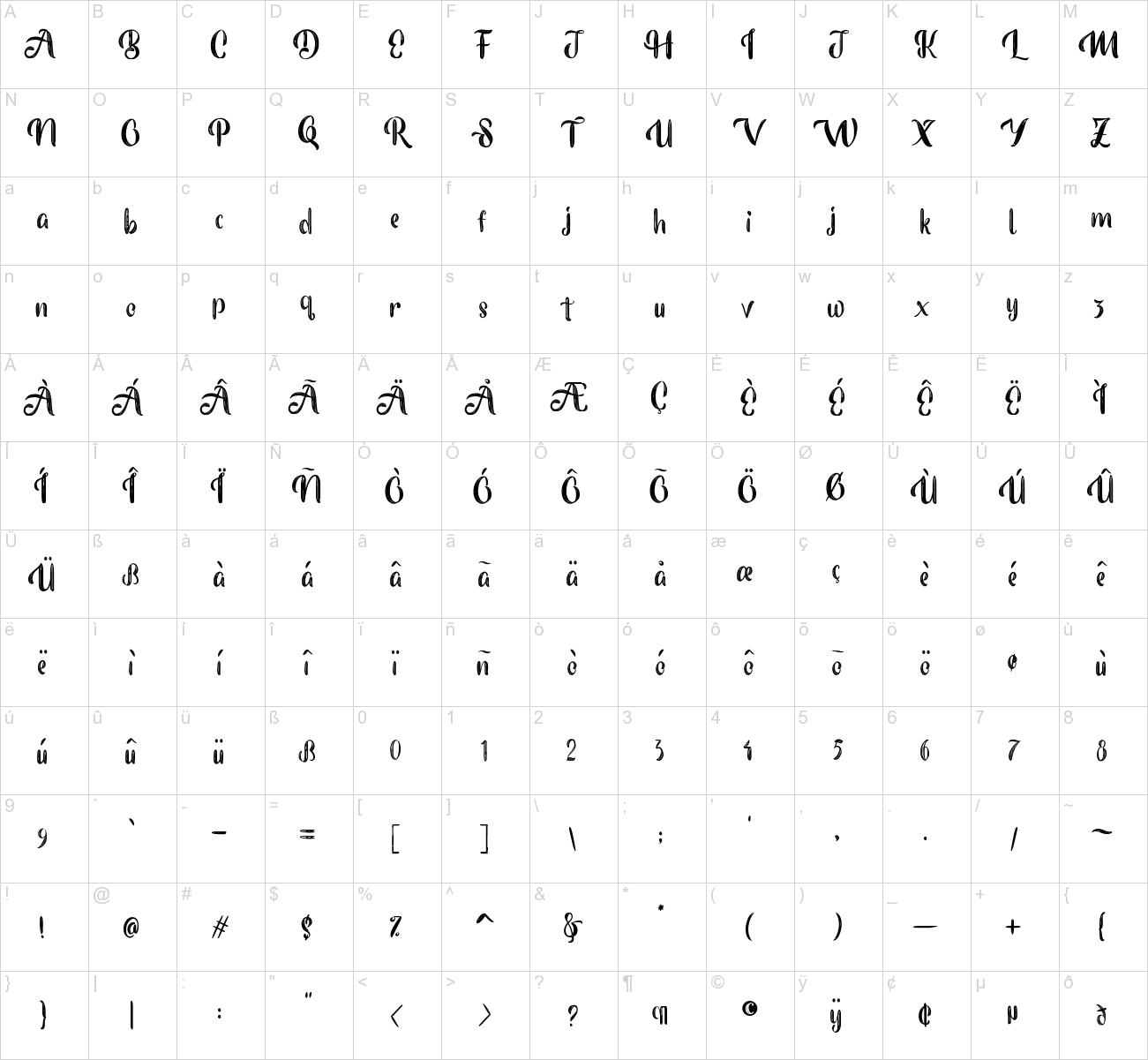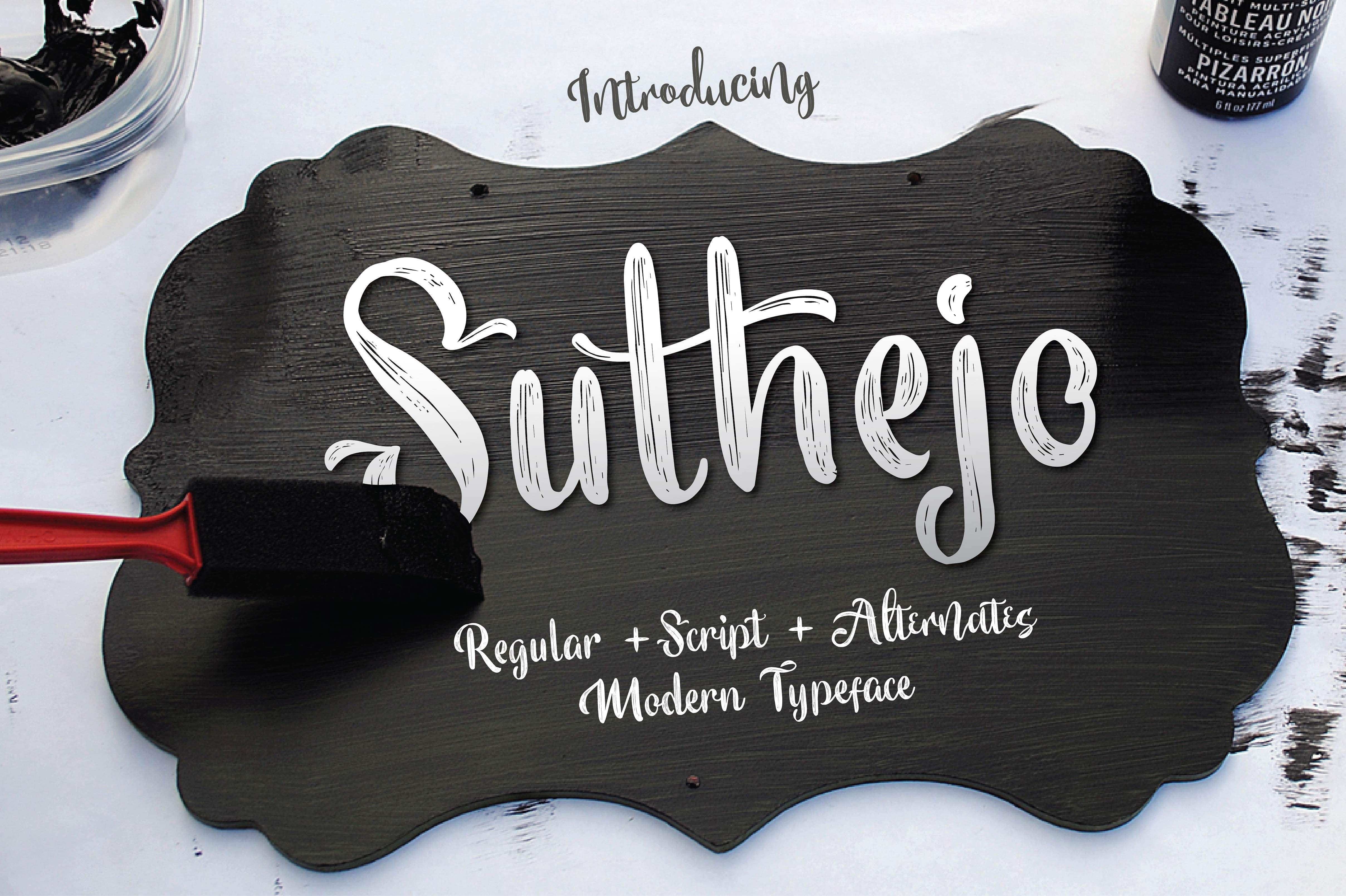
Suthejo Script Font
Suthejo is a beautiful Script, It suitable for wedding invitation, greeting cards, T-Shirt, Logo or any design that you create.comes with a complete set of standard characters, Alternates, Punctuation & international glyphs
| Classification: | Brush Fonts, Handwritten Fonts, Script Fonts |